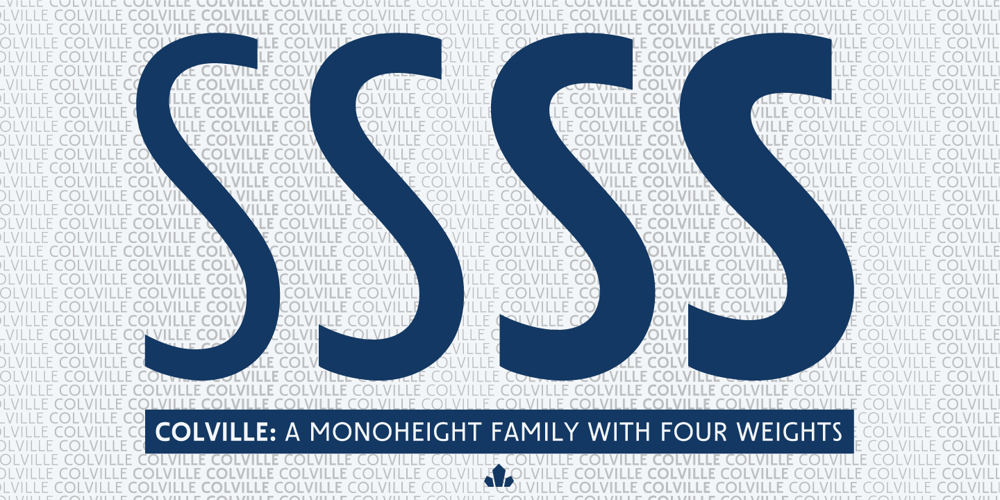
Colville Font Family was designed by Patrick Griffin and published by Canada Type. Colville contains 4 styles and family package options. The Colville fonts began their existence in 2015 as a project-specific typeface, made to be used on a custom-made headstone commemorating Canadian artist Alex Colville (1920-2013) and his wife Rhoda Wright. For that purpose, some initial shapes were modelled after letters Colville himself had used on a Governor General gold medal he designed in the mid-1970s. From there started a year-long project that culminated in a set of four comprehensive fonts ranging in weight from Light to Bold, each containing over 750 glyphs to cover Pan European language support, stylistic alternates, five sets of figures, automatic fractions, and some ornaments rooted in Alex Colville’s art. These fonts exhibit a strong art deco aesthetic that has always been a favourite of architects, metal casters, and sign makers. This is a very humanist geometry alternating from the precisely calculated to the curvy and lithe, subtle contrast, flat stroke stops, and airy proportions that make for a counterspace built for accommodation and comfort. The breadth and timeless humanism of the Colville set makes fit in a variety of applications, from straightforward headlines, titles, and emphasis captions, to branding and packaging.